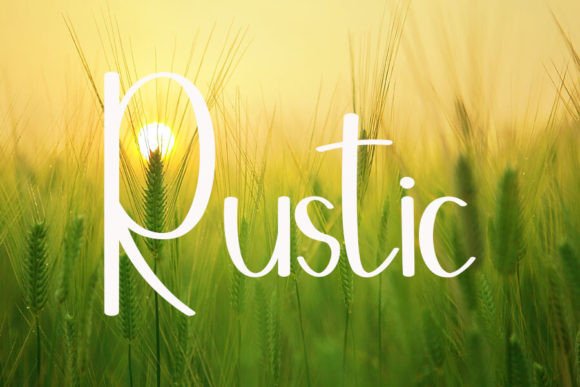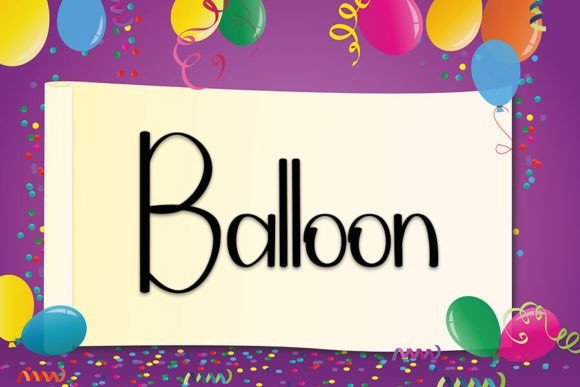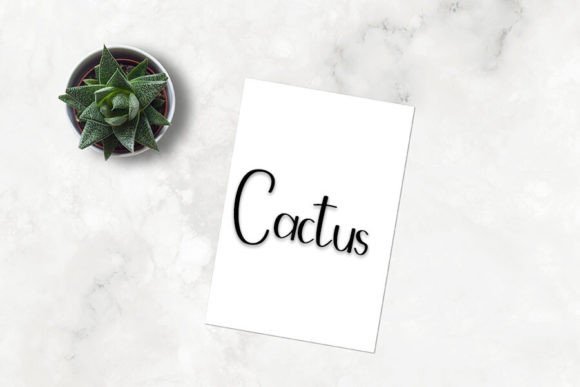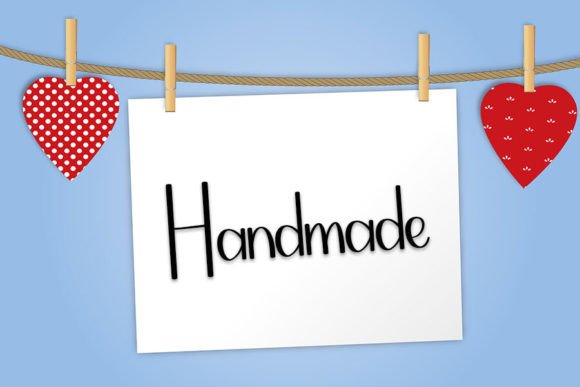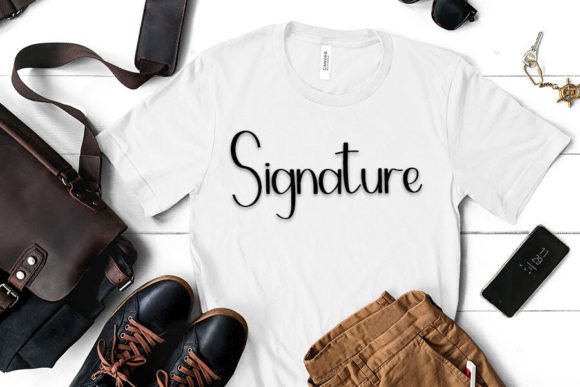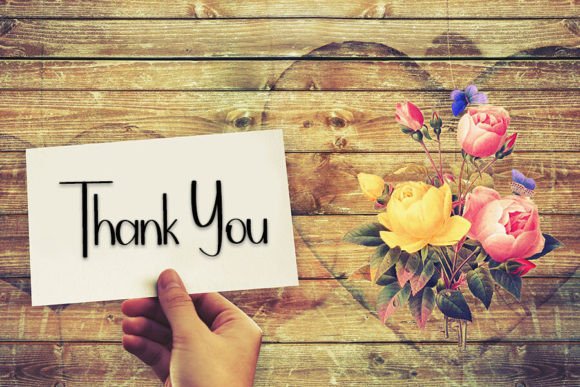
Farming Font: Elevate Your Designs with Timeless Elegance
In the world of typography, a well-crafted font can make all the difference in elevating your designs to new heights. For designers and crafters seeking a stylish and contemporary display font, Farming Font is an exceptional choice. Inspired by timeless classic calligraphy, this font boasts a perfect blend of balance, variety, and impeccable form, making it an ideal addition to your typography arsenal.
The Inspiration Behind Farming Font
Farming Font draws its inspiration from the elegance of classic calligraphy, reimagined with a modern twist. The result is a font that exudes sophistication and refinement, perfect for designers looking to add a touch of luxury to their projects. The font’s design is characterized by its balanced and varied letterforms, ensuring that your text remains legible and visually appealing.
Key Features of Farming Font
- Contemporary Atmosphere: The font’s modern design ensures that it fits seamlessly into contemporary design aesthetics, making it perfect for a wide range of applications, from branding and advertising to packaging and digital media.
- Impeccable Form: Each letterform in Farming Font has been carefully crafted to ensure that it is both aesthetically pleasing and highly legible. This attention to detail makes the font suitable for use in a variety of contexts, from headlines and titles to body text.
- Balanced and Varied: The font’s balanced and varied design ensures that your text remains engaging and visually appealing. This is particularly important for designers looking to create cohesive and harmonious compositions.
Applications for Farming Font
Farming Font’s versatility makes it suitable for a wide range of design applications, including:
- Branding and Identity: Use Farming Font to create stunning logos, business cards, and letterheads that reflect your brand’s personality and values.
- Advertising and Marketing: The font’s elegant design makes it perfect for use in advertising campaigns, brochures, and flyers.
- Packaging Design: Add a touch of sophistication to your product packaging with Farming Font, making your products stand out on store shelves.
- Digital Media: The font’s clean and modern design ensures that it works beautifully in digital contexts, including websites, social media graphics, and email marketing campaigns.
Tips for Using Farming Font
To get the most out of Farming Font, consider the following tips:
- Play with Font Sizes: Farming Font’s balanced design ensures that it looks great at a wide range of font sizes. Experiment with different sizes to create visual hierarchy and emphasis.
- Combine with Other Fonts: Don’t be afraid to combine Farming Font with other fonts to create visually interesting and harmonious compositions.
Farming Font is a stylish and versatile display font that offers a perfect blend of classic elegance and modern sophistication. With its impeccable form, balanced design, and PUA encoding, this font is an excellent choice for designers and crafters looking to elevate their projects. Whether you’re working on branding, advertising, packaging, or digital media, Farming Font is sure to make a lasting impression.